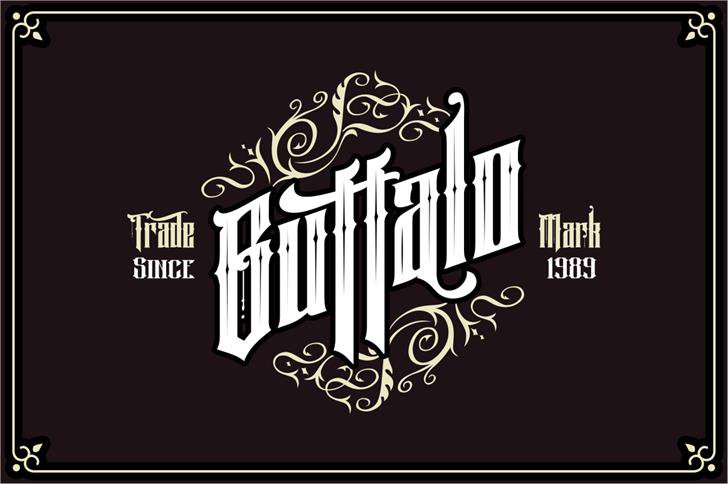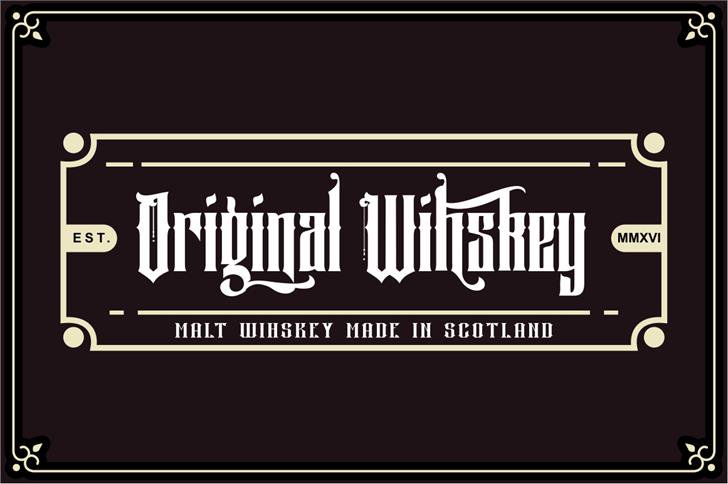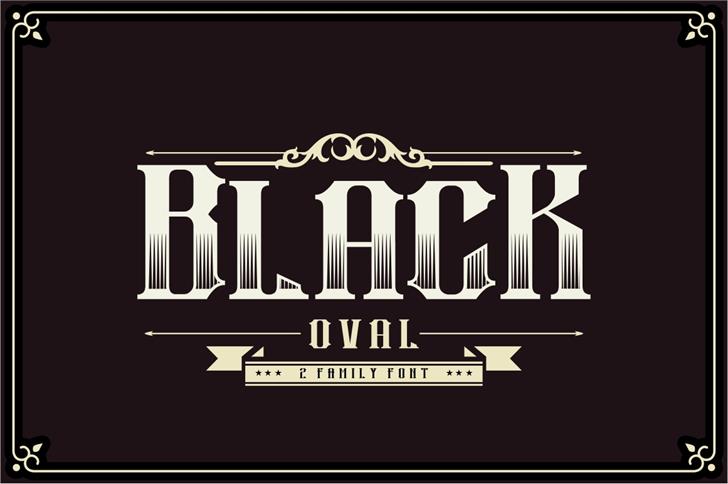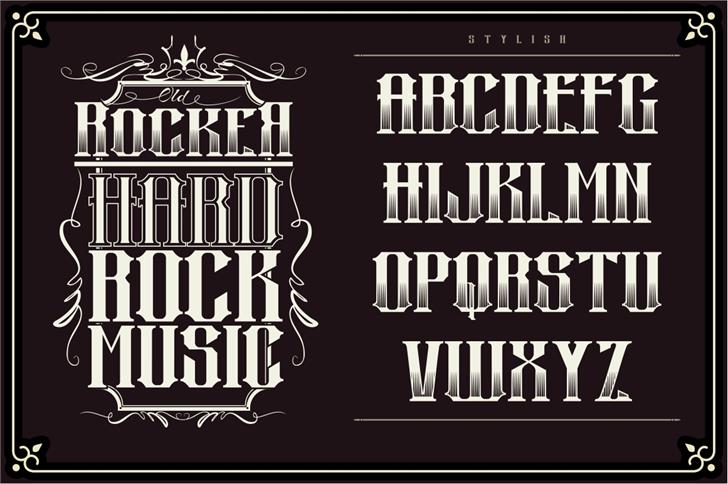
Black Oval Typeface
Black Oval Typeface – Free Demo
If you are looking for a modern vintage font then this would be a perfect choice. You will not have to spend a lot of time creating a separate font. Introducing Black Oval Typeface! It is designed and shared by INKSUN™. Black Oval, is a font with a blackletter style peppered with modern vintage. these two fonts are perfect for your creative work, such as Poster, t shirt, logo, Label and everything else.